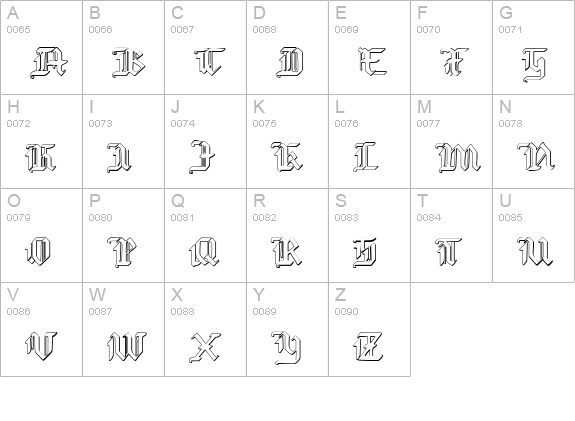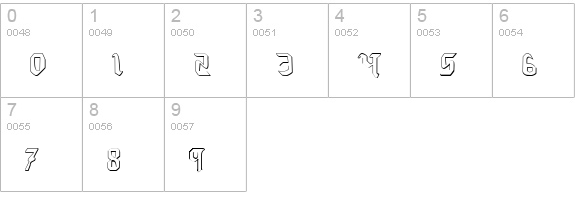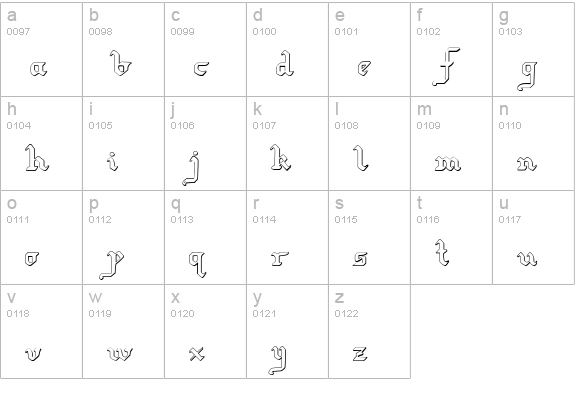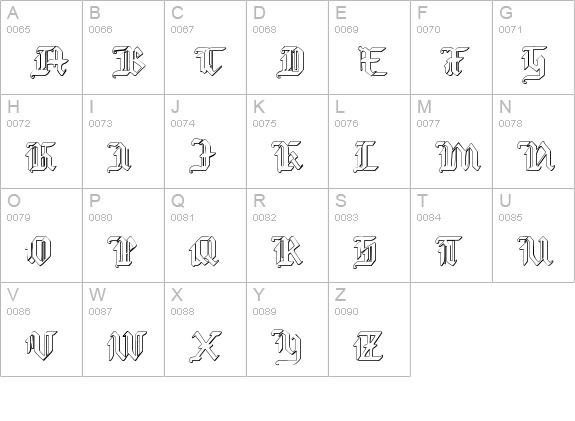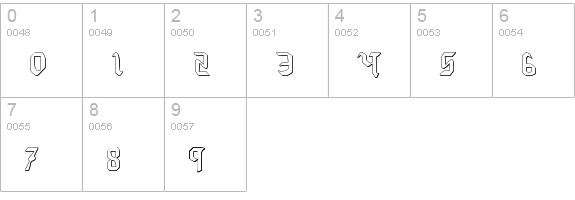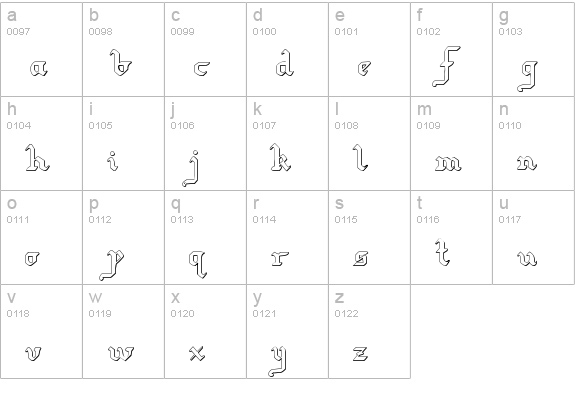
Redcoat Shadow font is a striking and elegant typeface that exudes sophistication and charm. This font features intricate details and a unique shadow effect that adds depth and dimension to your text. With its classic yet modern design, Redcoat Shadow font is perfect for adding a touch of elegance to any project. What's even better is that Redcoat Shadow font is available for free download at FontsMarket.com. This means that you can easily access this beautiful font and use it in your designs without any cost. Whether you're working on a branding project, invitations, posters, or any other creative endeavor, Redcoat Shadow font will surely make your text stand out. Download it now and elevate your designs with this exquisite typeface.